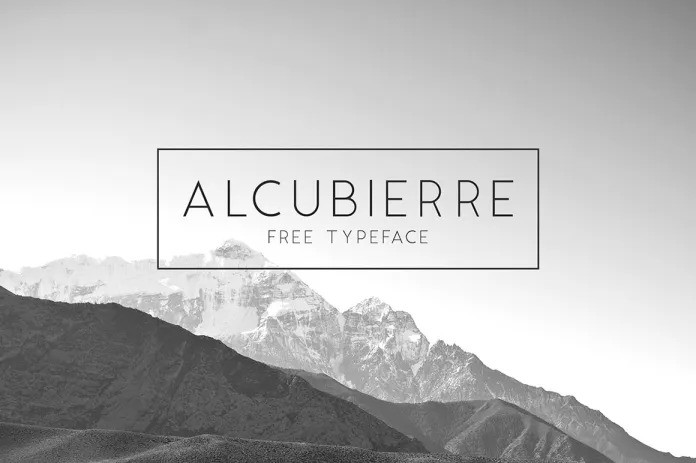
Alcubierre Font Free
Introduction to Alcubierre. A great quality sans serif typeface that was designed by Matt Ellis, a Canadian type designer. He has designed some of the best quality fonts where Alcubierre is one of the most popular one.
It features sharp edges for glyphs and character set including uppercase, lowercase, symbols, numerals and accents.